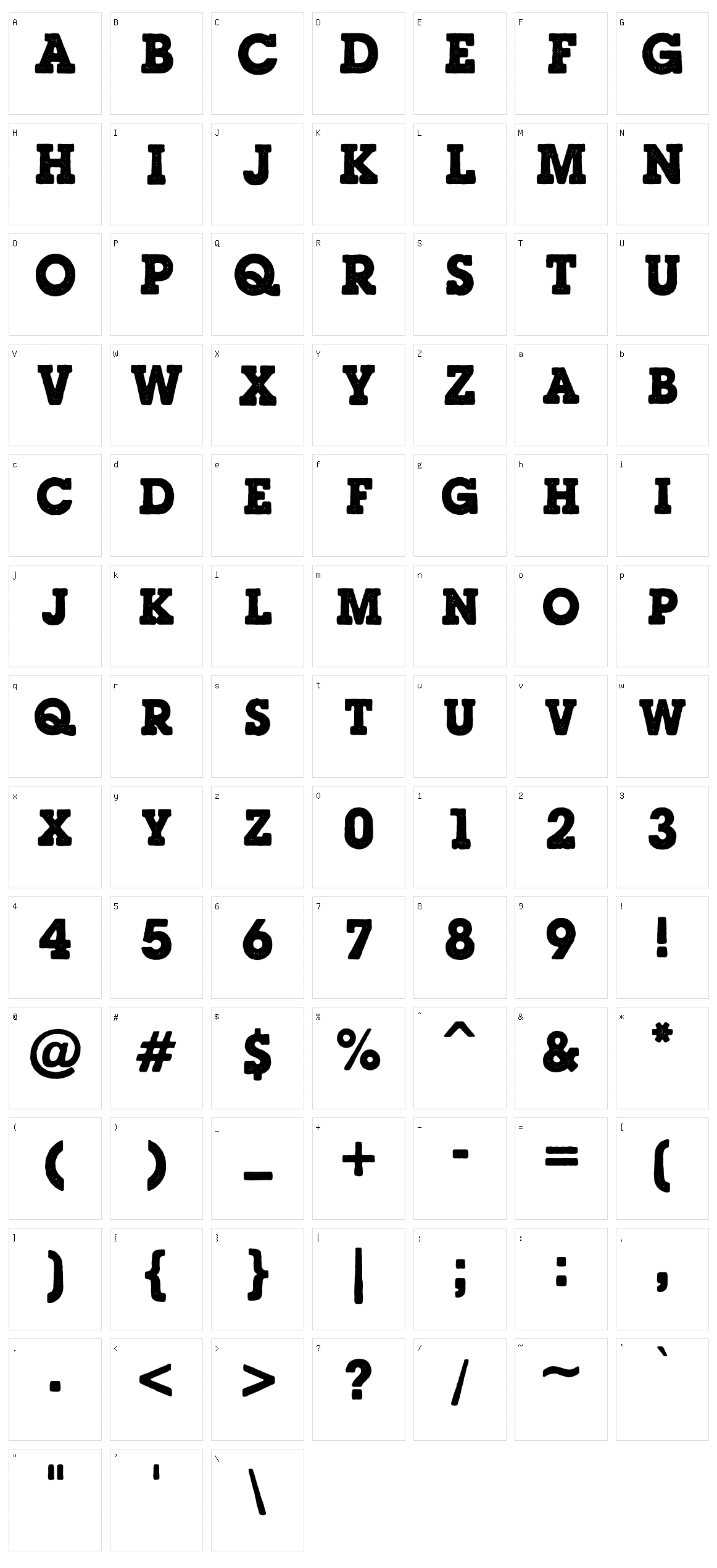
MAJESTIC SCHNOZZ
A Font by S. John Ross
Sometimes, a plush dog can change your life in unexpected ways, and the most accomplished plush dog I've ever met inspired this font. The way the glyph weight increases very slightly toward the bottom? That's him. The spotted stressing? That's him, too. The old-fashioned formality? The softly rumpled lines of the exterior? That's him. That's Englebert. His full name (translated approximately from Dog German) is Englebert Dur Wunderhund Awesome Sauce III, and he's not only a Dogtor (indeed, a Professor), he's a Beagle-at-Law, a certified Style Hound, sometimes a private detective, and one of the world's foremost Hello Kitty enthusiasts (Englebert is comfortable with the term "Hello Kitty Fanatic," which speaks beautifully of his character, I daresay). Englebert is not only majestic, adorable and dignified, he is a communicator - a dog that speaks truth in times of uncertainty, calm in times of stress, and has real opinions on birds and cats that we should all seek to understand. He also has some advice for all of us, each and every one: get more sleep. Sleep is good for you.